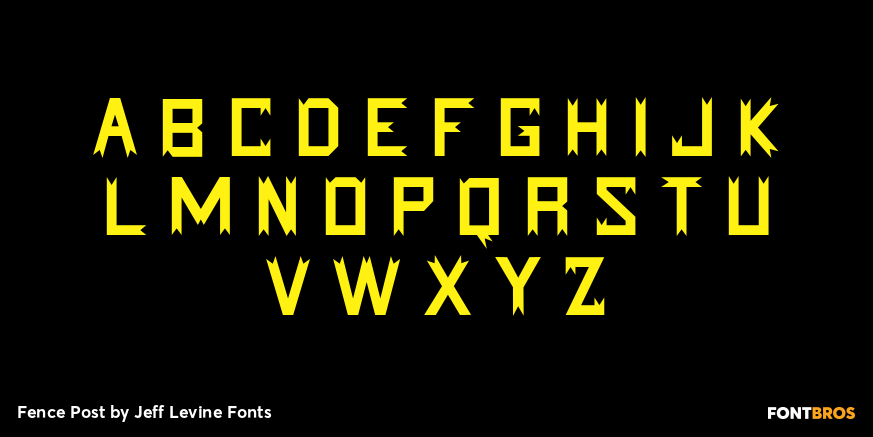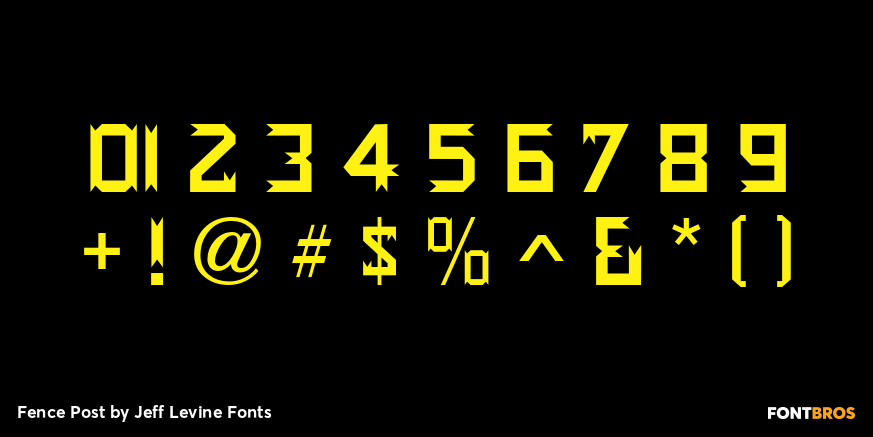
Fence Post
The inspiration for Fence Post JNL comes out of an early 1900s manual for sign writing. A number of changes were made to make the design more aesthetically pleasing, but it retains its novelty effect of evoking the look of wooden fence posts or Western-themed typography.